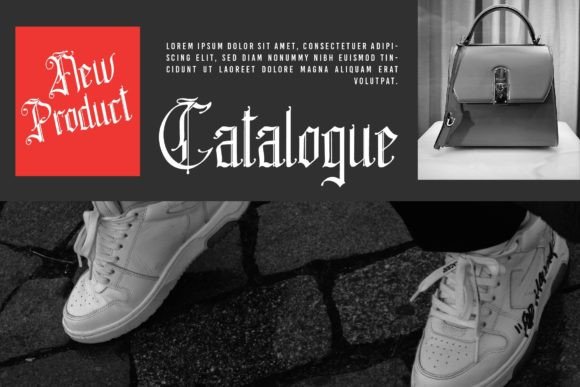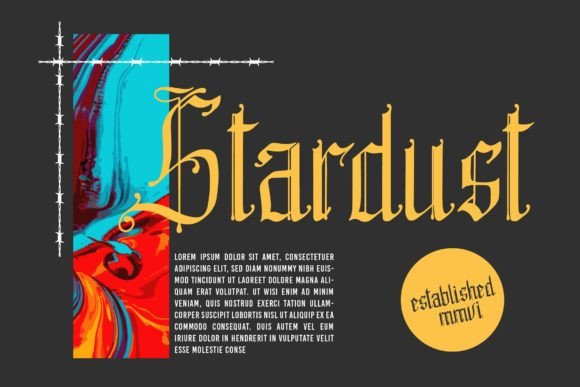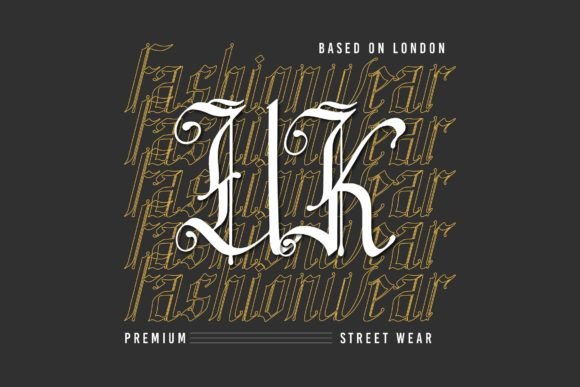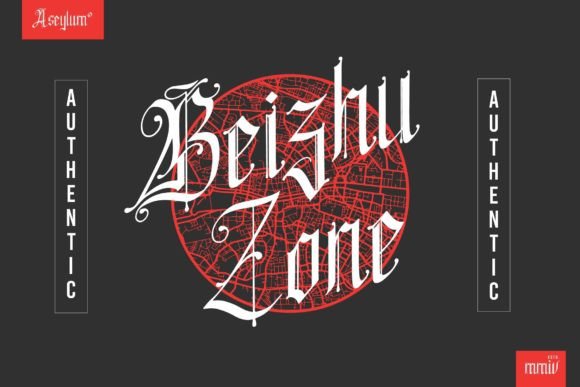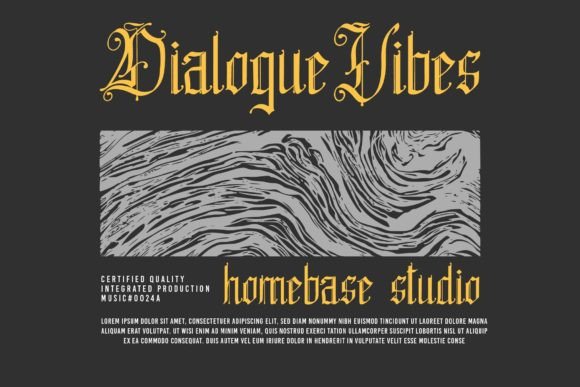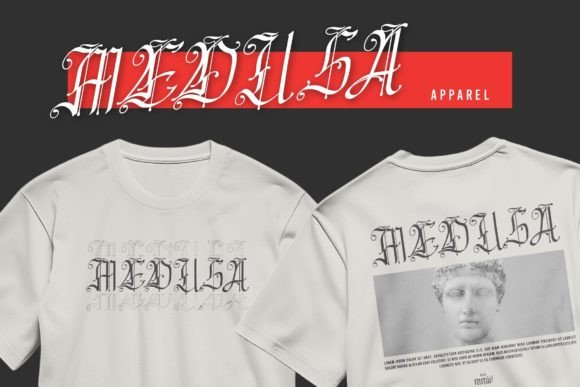
Belingal Font: Elevate Your Designs with a Classic Blackletter Style
Are you a designer or crafter looking for a font that exudes elegance and sophistication? Look no further than Belingal, a classic blackletter font perfect for a wide range of projects. From logos and branding to homeware designs, product packaging, and more, Belingal is the ideal choice for adding a touch of timeless charm to your creations.
The Characteristics of Belingal Font
Belingal is a beautifully crafted blackletter font that boasts a distinctive, classic look. Its intricate lettering and ornate details make it perfect for designs that require a sense of luxury and refinement. The font’s elegant strokes and curves evoke a sense of nostalgia, making it suitable for projects that require a vintage or traditional feel.
Uses of Belingal Font
Belingal is an incredibly versatile font that can be used in a variety of projects, including:
- Logos and branding projects: Create a lasting impression with a custom logo that showcases your brand’s personality and style.
- Homeware designs: Add a touch of sophistication to your home decor designs, from wall art to stationery.
- Product packaging: Make your products stand out on store shelves with eye-catching packaging that features the Belingal font.
- Mugs, quotes, posters, and shopping bags: Create unique and personalized items that showcase your creativity.
- T-shirts, book covers, name cards, invitation cards, and greeting cards: Add a touch of elegance to your apparel and stationery designs.
- Labels, photography, and watermarks: Use Belingal to add a professional touch to your photos and products.
- Special events: Create memorable invitations, programs, and other materials for weddings, parties, and other special occasions.
Why Choose Belingal Font?
So why choose Belingal over other fonts? Here are just a few reasons why designers and crafters love this classic blackletter font:
- Timeless appeal: Belingal’s classic design ensures that your projects will never go out of style.
- Elegance and sophistication: The font’s intricate details and ornate lettering add a touch of luxury to any design.
- Versatility: Belingal can be used in a wide range of projects, from logos and branding to homeware designs and product packaging.
- Easy to read: Despite its ornate design, Belingal is surprisingly easy to read, making it perfect for body text and headlines.
Tips for Using Belingal Font
To get the most out of Belingal, here are a few tips to keep in mind:
- Use it sparingly: Belingal’s ornate design can be overwhelming if overused. Use it sparingly to add emphasis to key elements in your design.
- Experiment with colors: Belingal looks stunning in a range of colors, from classic black and white to bold brights and metallics.
- Pair it with contrasting fonts: Pair Belingal with a contrasting font to create visual interest and add depth to your design.
Belingal is a beautiful, classic blackletter font that’s perfect for designers and crafters looking to add a touch of elegance and sophistication to their projects. With its timeless appeal, versatility, and ease of use, Belingal is an excellent choice for a wide range of applications. Whether you’re creating logos and branding, homeware designs, or product packaging, Belingal is sure to impress. So why not give it a try and see the difference it can make in your designs?